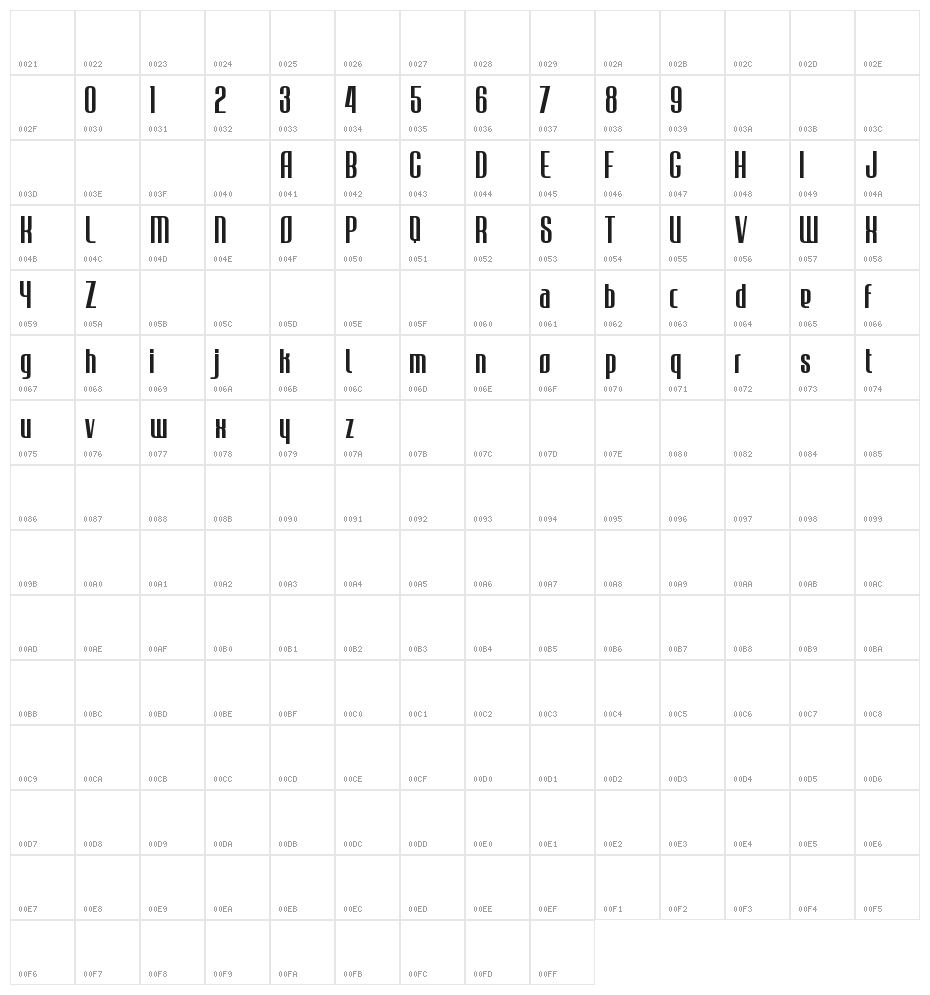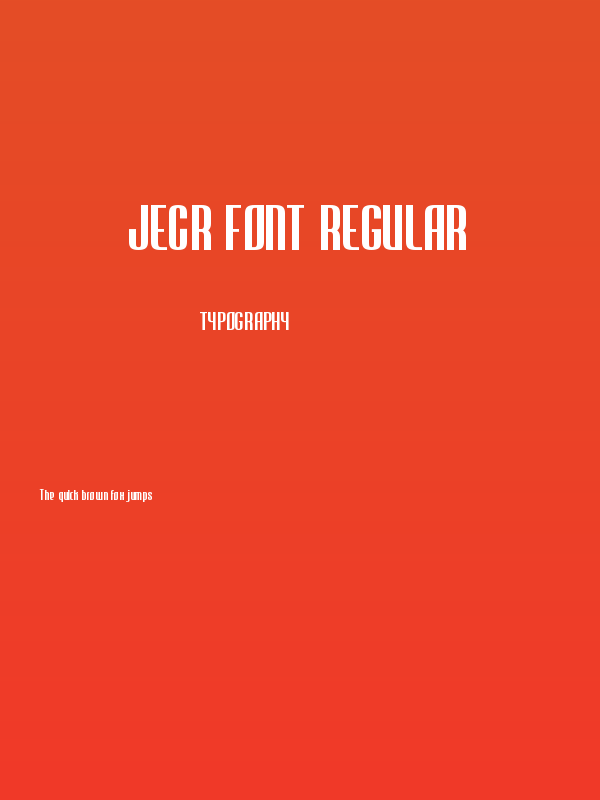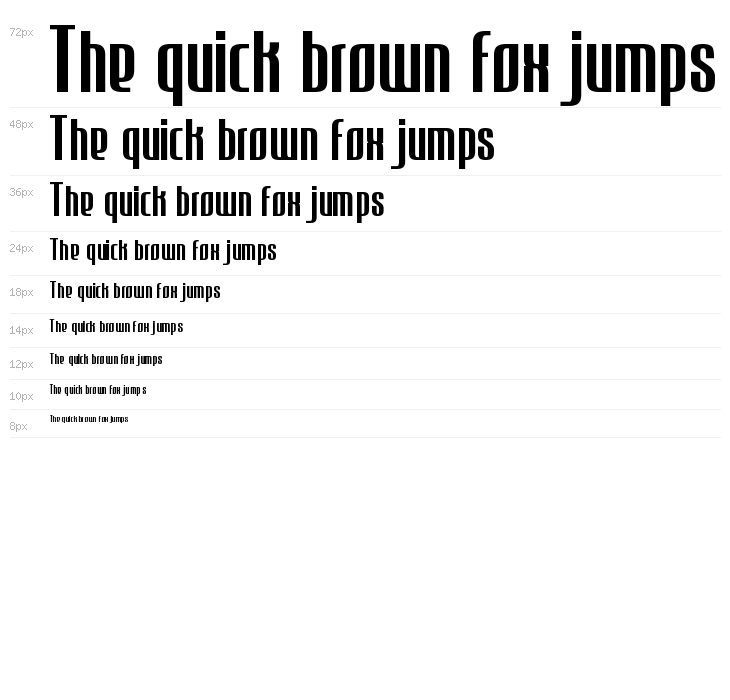
JECR Font Regular Font
JECR Font Regular Description
This font features a bold and impactful design with tall, narrow characters that convey a sense of strength and modernity. The uppercase letters are particularly striking, with a uniform height and a slightly condensed appearance that enhances their visual impact. The lowercase letters maintain the same boldness, offering a consistent look across different text sizes. The numbers are equally bold, ensuring readability and prominence. This font's clean lines and lack of serifs give it a contemporary feel, making it suitable for a variety of design applications.